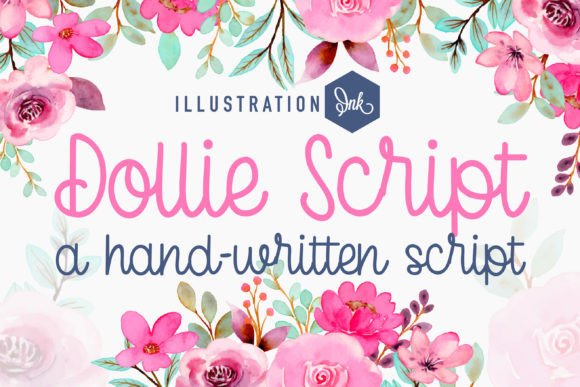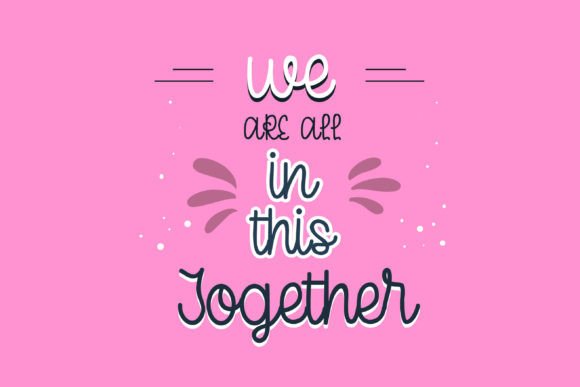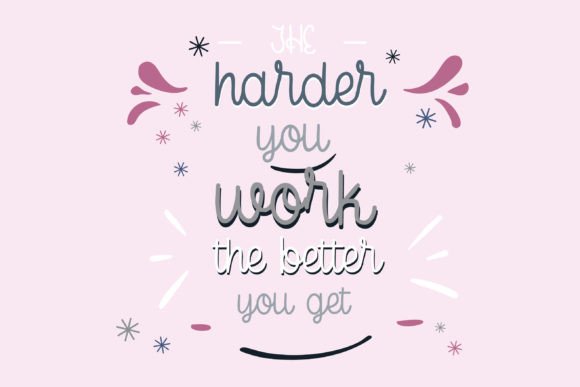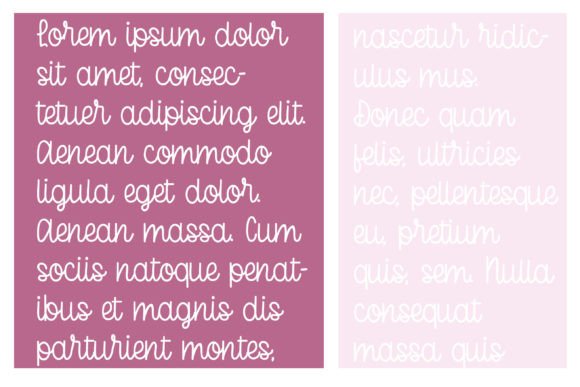
Dollie Script Font
About the Dollie Script Font
From logos to headlines, the Dollie Script Font is the perfect choice for making a lasting impression. Dollie Script is a delightful and quirky handwritten font that captures the essence of whimsy and playfulness. With its uneven strokes and charming imperfections, this font adds a touch of uniqueness to any project. Whether used for invitations, greeting cards, or crafty designs, Dollie Script brings a sense of joy and creativity, making it perfect for fun and lighthearted creations.
Dollie Script’s whimsical nature makes it ideal for projects requiring a playful touch, such as branding for children’s products, invitations to celebratory events, or packaging for artisanal goods. It excels in headlines, short quotes, and logotypes where its unique character shines. However, its uneven strokes make it unsuitable for body text or lengthy paragraphs; readability suffers at smaller sizes.
Consider pairing Dollie Script with a clean sans-serif like Montserrat for a balanced contrast, or a classic serif like Playfair Display for a touch of elegance. For a more modern feel, a geometric sans-serif such as Futura could provide a strong counterpoint.
Dollie Script’s overall personality is undeniably playful and friendly, yet retains a touch of sophistication. Its imperfect charm is best utilized in projects that prioritize personality and visual interest over strict formality.
Dollie Script Font Usage Examples
Dollie Script Font Example